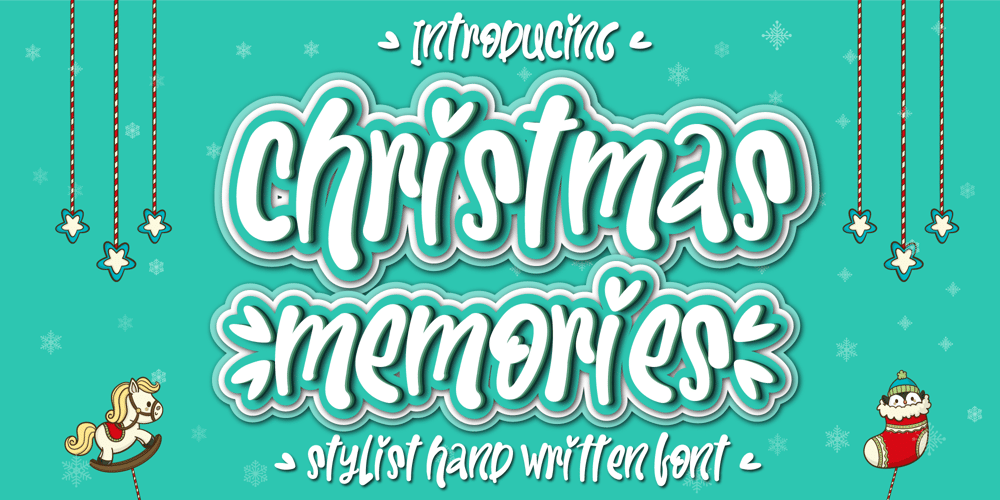
Christmas Memories Font Family was designed by Ake Thanantreesak and published by Ake. Christmas Memories contains 2 styles and family package options. Christmas Memories is a beautiful, well balanced and stylish script font. It is defined by smooth curves and is perfect for fashion branding or editorial designs. Add it confidently to your projects, and you will love the results.